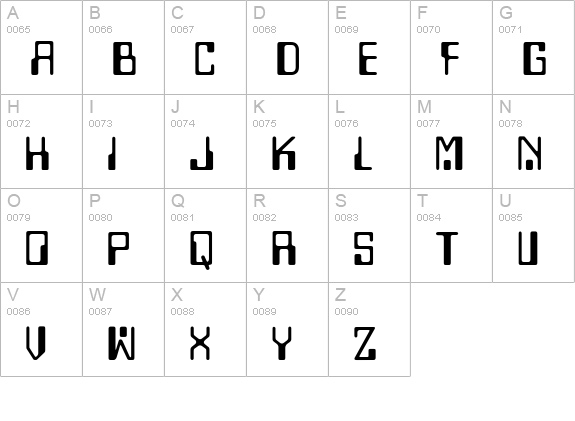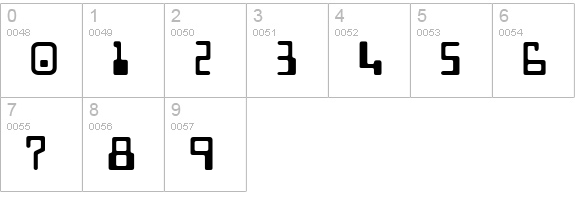
Techno Display Caps SSi is a striking and modern font that will make your designs stand out. Its sleek and futuristic appearance is perfect for projects that require a contemporary touch. With its clean lines and geometric shapes, Techno Display Caps SSi exudes a sense of professionalism and sophistication. This font is not only visually appealing, but also highly versatile. Whether you're creating a logo, designing a website, or crafting a poster, Techno Display Caps SSi will provide the perfect balance between style and legibility. Its bold and uppercase letters make a bold statement, while its compact spacing keeps the text readable and easy to understand. What sets Techno Display Caps SSi apart is its availability as a free download. FontsMarket.com offers this font freely, allowing you to enhance your designs without any additional cost. By choosing Techno Display Caps SSi, you not only gain access to a high-quality typeface, but also the freedom to use it in any personal or commercial project. Don't miss the opportunity to elevate your designs with Techno Display Caps SSi. Download it for free at FontsMarket.com and unleash your creativity today.